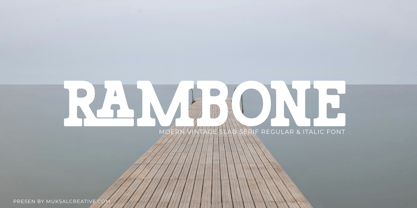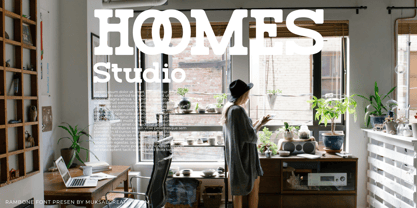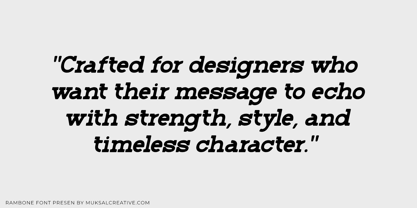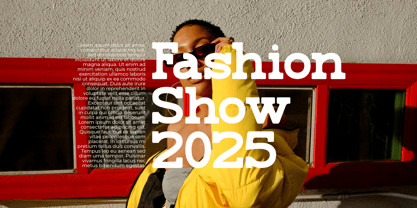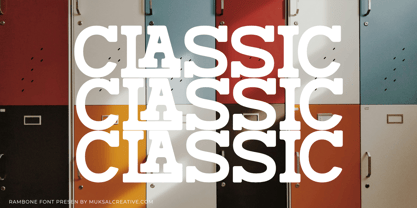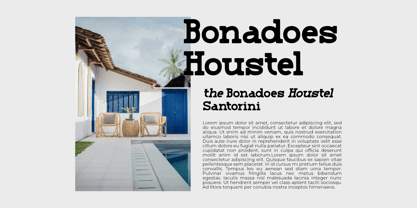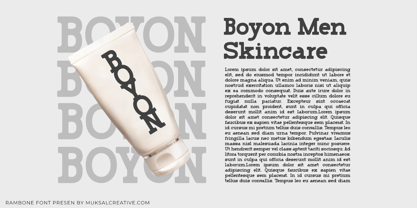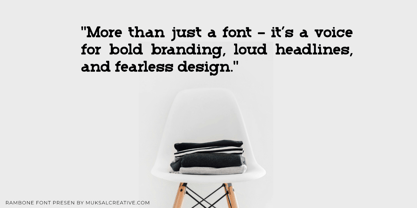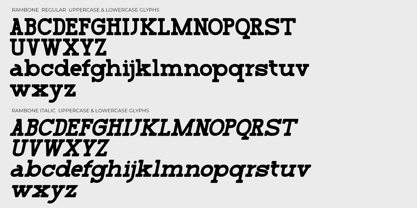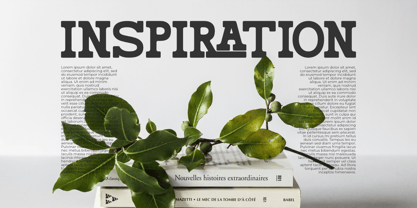
Rambone
The Rambone Font Family was designed by Muksalmina and published by Muksal Creatives. Rambone contains 2 styles and family package options.
Rambone is a bold slab serif font with a strong, confident personality. Inspired by vintage type styles and refined with a modern edge, Rambone is designed to stand out across all kinds of visual projects—from branding and packaging to editorial headlines and impactful posters.
This font comes in two styles: Regular and Italic, giving you flexibility to create dynamic typographic combinations with ease.
Each letterform is crafted with firm structure and assertive presence, making it a perfect choice for designs that demand attention. With its solid curves and powerful stance, Rambone delivers both style and substance.